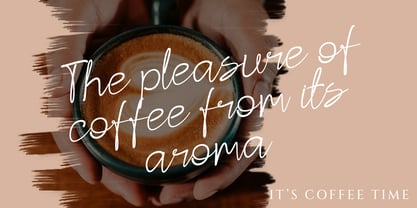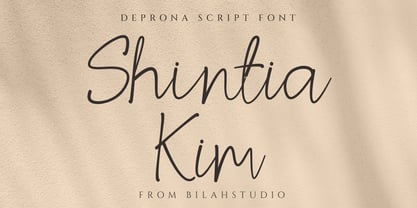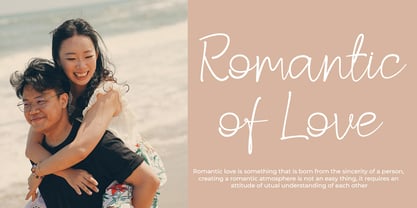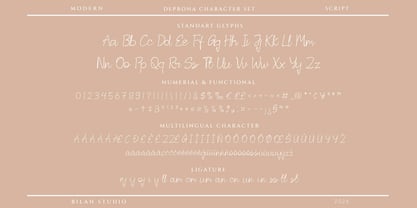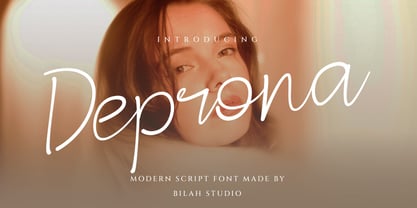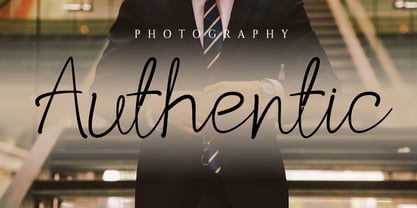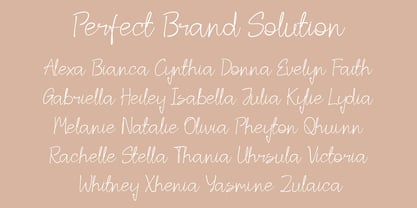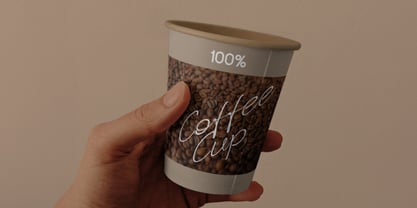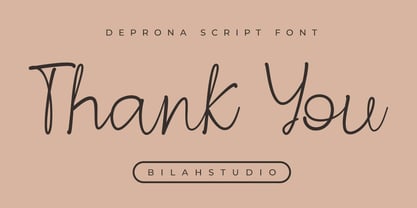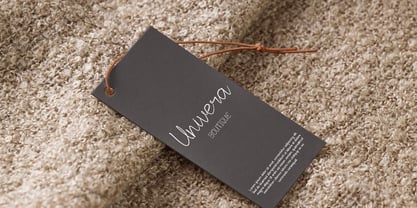
Deprona
by Bilahstudio
The Deprona Font Family was designed by Ismunandar Rambe and published by Bilahstudio. Deprona contains 1 styles. More about this family
Deprona is an elegant handwritten font inspired by a simple fashion style. Deprona embraces elegance, its details creating a sense of simplicity and femininity. Deprona is a perfect choice for any creative endeavor, chic lifestyle design, such as logos, titles, photography watermarks, covers, branding, displays and magazines, weddings, corporate branding, quotes, album covers, business cards, business projects, corporate branding, and other projects with a handwritten or elegant feel.
Designers: Ismunandar Rambe
Current Foundry: Bilahstudio